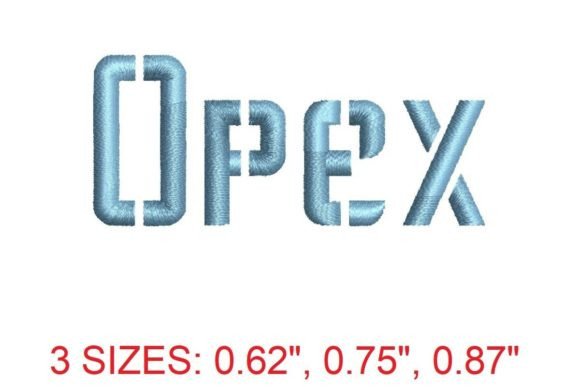
Opex Embroidery Font Review
The Opex embroidery font is a standout choice for any embroidery designer looking to elevate their seasonal and holiday product lines. With its sleek, modern design and clean lines, it brings a contemporary aesthetic that works well across a variety of applications. Whether you're creating handmade gifts, personalized items, or home decor, the Opex font offers versatility and style that can enhance your offerings during key shopping periods.
First Impressions: A Modern Touch for Seasonal Projects
From the moment you see the Opex embroidery font, it exudes a sense of sophistication and clarity. The design is minimalist yet impactful, making it ideal for holiday embroidery projects that need to stand out without being overwhelming. Its decorative style is perfect for adding a touch of elegance to sweatshirt embroidery, tote bag design, or kitchen towel embroidery. The font’s detail level is just right—enough to catch the eye but not so intricate that it becomes impractical for machine embroidery design.
When used on pillow cover or embroidered patch projects, the Opex font maintains its visual appeal, offering a clean and professional look that resonates with customers looking for premium quality. It feels both modern and timeless, making it a great fit for Back To School themes as well as year-round holiday embroidery.
Real-World Performance in Holiday Selling Situations
As an embroidery designer, I’ve tested the Opex font across various holiday products, and it consistently performs well. In gift bundles and Etsy listings, the font adds a polished finish that enhances the perceived value of handmade gifts and personalized gifts. When used in craft fair displays, it draws attention and conveys a sense of quality that appeals to shoppers looking for unique, custom items.
For limited edition apparel and family matching items, the Opex font provides a cohesive look that supports brand consistency. Its simplicity allows for easy color customization, making it ideal for small shop product lines that need to offer multiple options without complicating the design process. Whether you’re working on table linens or baby items, the font’s clarity ensures that the message remains legible and visually appealing.
Where to Use Opex Embroidery Font with Caution
While the Opex font is highly versatile, there are certain scenarios where care must be taken. On small hoop sizes, the font may require adjustments to ensure that all details are captured properly. Tiny lettering could become distorted if not scaled correctly, especially when used on items like embroidered patches or curved caps.
Layered details might also pose a challenge, particularly on thick towels or dark fabric where visibility could be an issue. Metallic thread can sometimes highlight imperfections in the design, so testing thread colors on both light and dark fabric is essential. For stretchy garments or items that will undergo repeated washing, it’s important to confirm that the stitch density is sufficient to prevent wear and tear.
Impact on Seasonal Appeal and Customer Engagement
The Opex embroidery font has a strong influence on seasonal appeal. Its clean lines and modern feel make it a go-to choice for holiday embroidery projects that aim to evoke a sense of sophistication. Customers often associate such designs with higher quality, which can increase the perceived value of your finished product.
When used in printable mockup or social media previews, the font helps create engaging visuals that attract potential buyers. Its ability to convey a clear message while maintaining a stylish appearance makes it ideal for personalized gifts that resonate emotionally with recipients. This emotional connection can translate into greater customer trust and repeat business.
Practical Designer Notes for Using Opex Embroidery Font
Before finalizing any project, it’s crucial to test the Opex font on different fabric textures to ensure compatibility. Confirming the proper hoop size and using the right stabilizer can prevent common issues like puckering or distortion. Checking the stitch density is also important to maintain the integrity of the design, especially on items that will be washed frequently.
Creating realistic mockups helps showcase how the Opex font will look on actual products, giving customers a clear idea of what to expect. Reviewing small details after stitching ensures that no mistakes go unnoticed. Planning matching color palettes can help maintain a cohesive look across your seasonal collection.